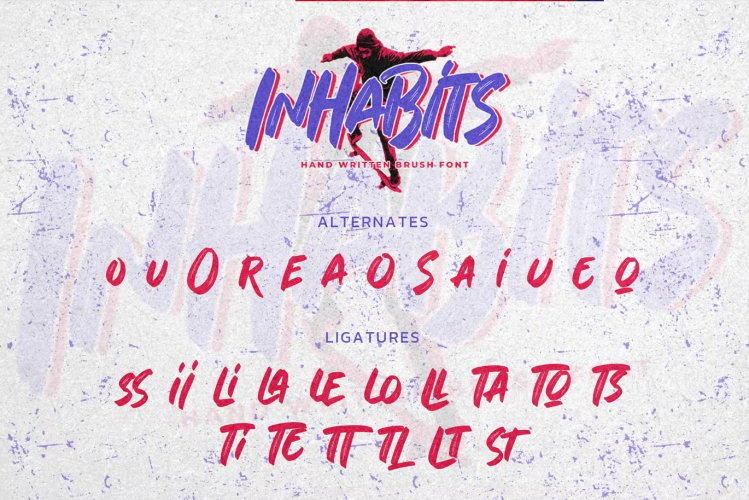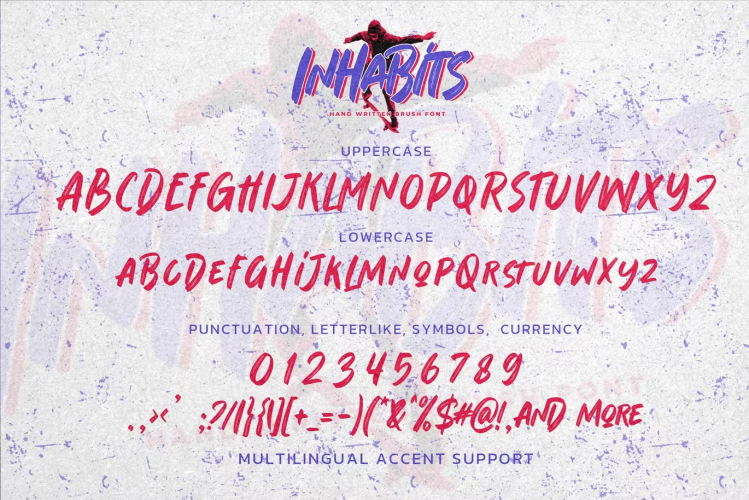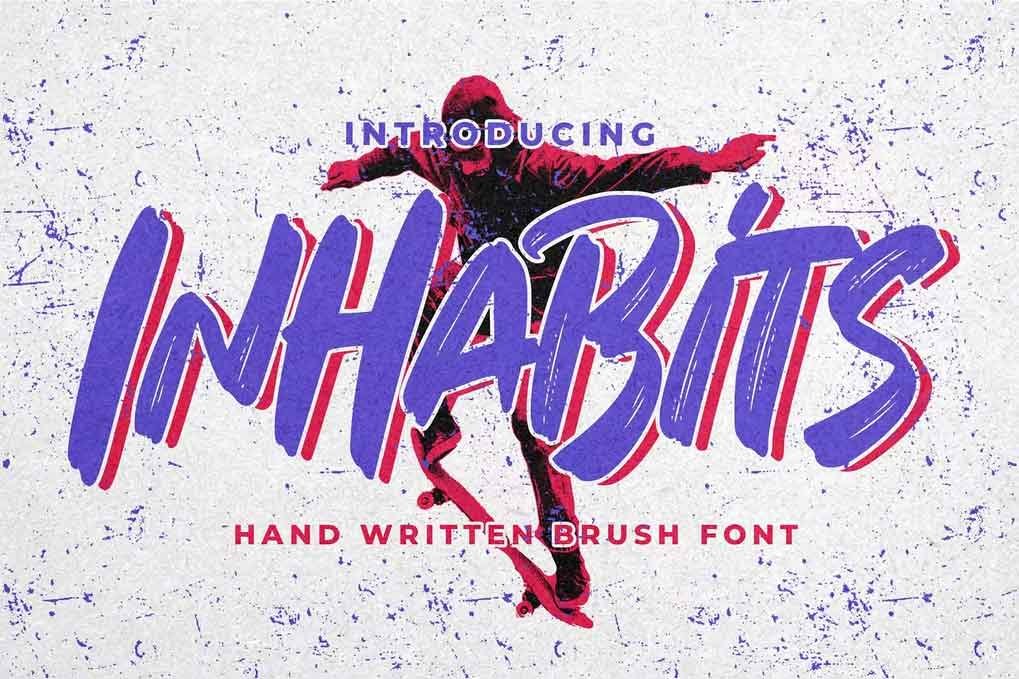
INHABITS Handwritten Brush Font
Hello Everyone, introduce our new product Font INHABITS it is Handwritten Brush Font,This is a Textured Natural Style and classy style with a clear style and dramatic movement.
This font INHABITS is great for your next creative project such as logos, printed quotes, invitations, cards, product packaging, headers, Logotype, Letterhead, Poster, Design this font is great for your creative projects such as watermark on photography, and perfect for logos & branding, invitation,advertisements,product designs, stationery, wedding designs,label ,product packaging, special events or anything that need handwritting taste. That is has charming, authentic and relaxed characteristic more natural look to your text.
You can activate 16 Ligatures glyphs and 13 Alternates glyphs OpenType panel.
INHABITS Handwritten Brush Font is a Sans Serif Fonts font that brings a professional and versatile look to your projects. Hello Everyone, introduce our new product Font INHABITS it is Handwritten Brush Font,This is a Textured Natural Style and classy style with a clear style and dramatic movement.